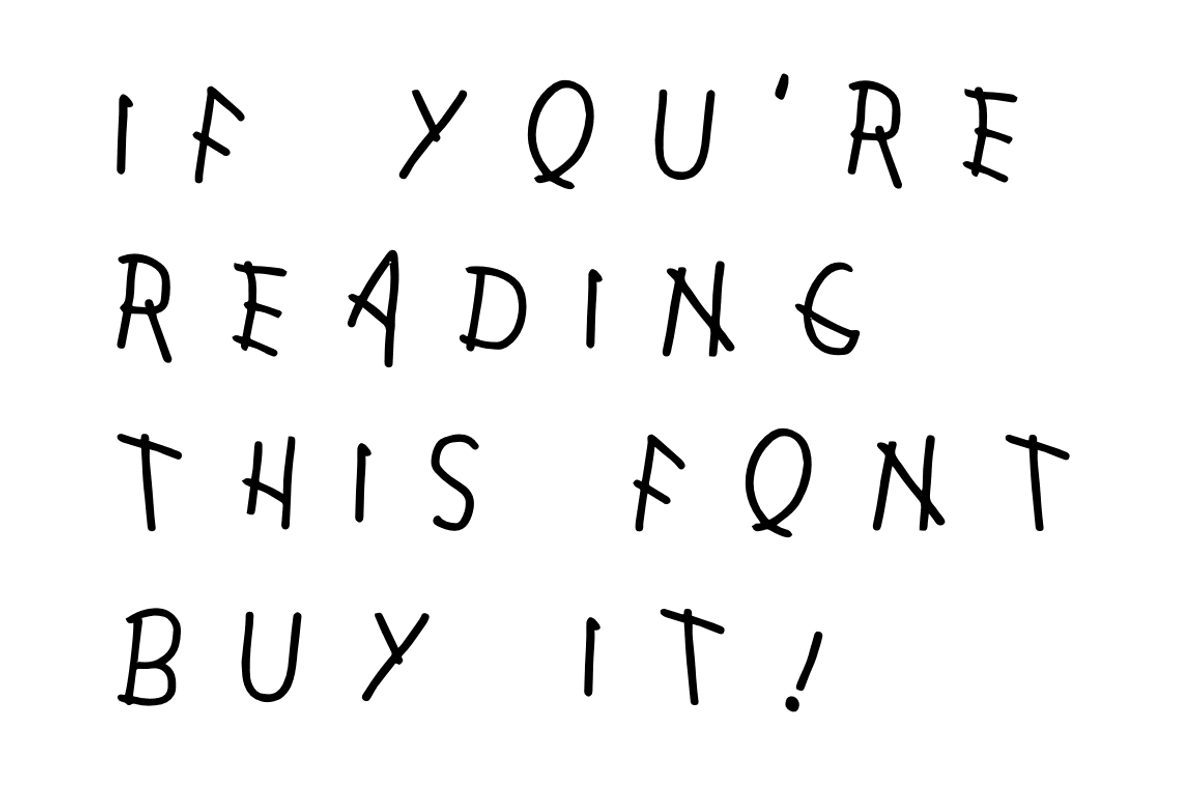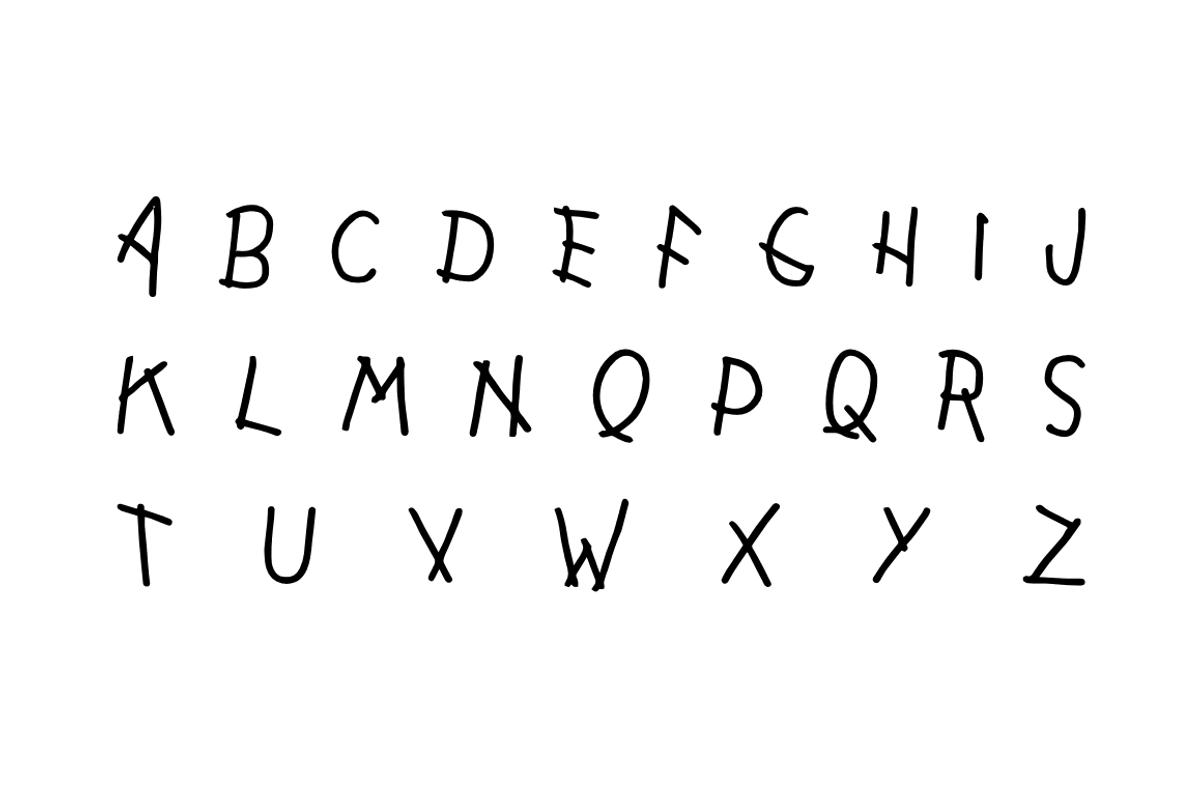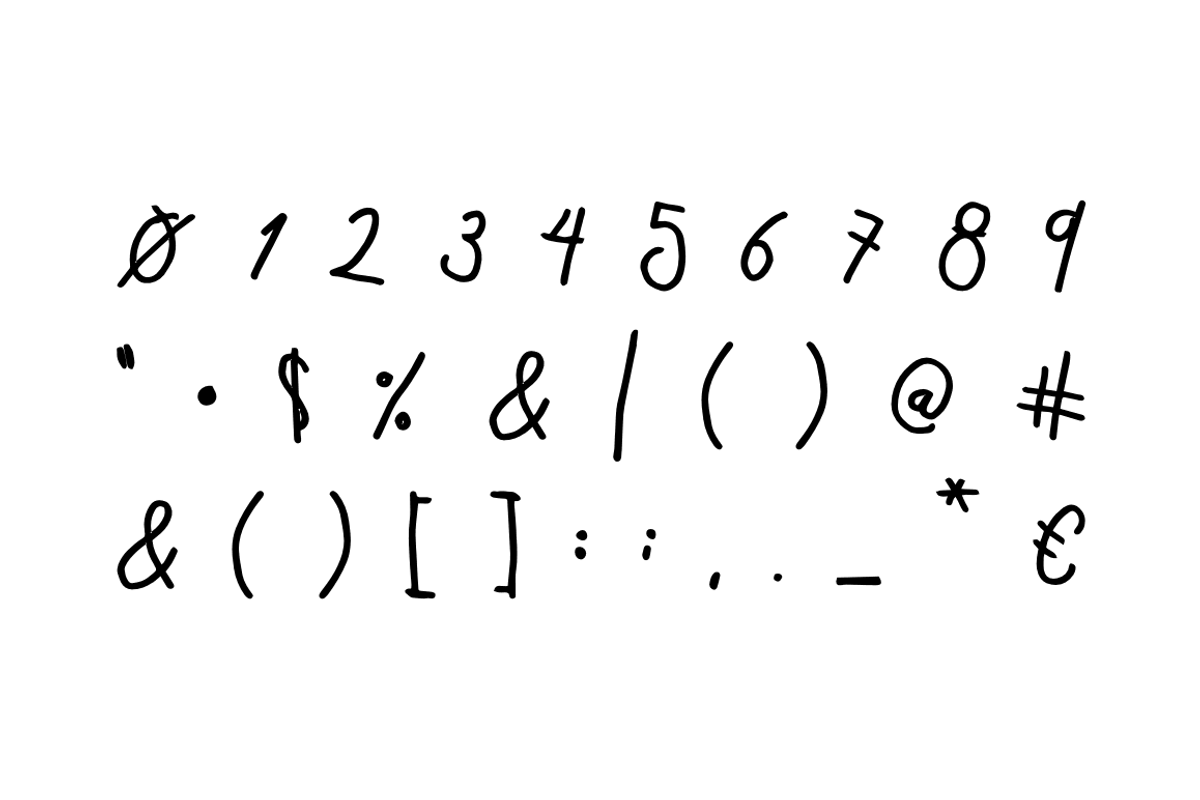
Reading This — Font
Reading This — Font by Noe Araujo is a font selected for branding, posters, packaging, typography.
Why Reading This — Font is worth a look
Reading This — Font by Noe Araujo fits naturally into Branding, posters, packaging, typography.